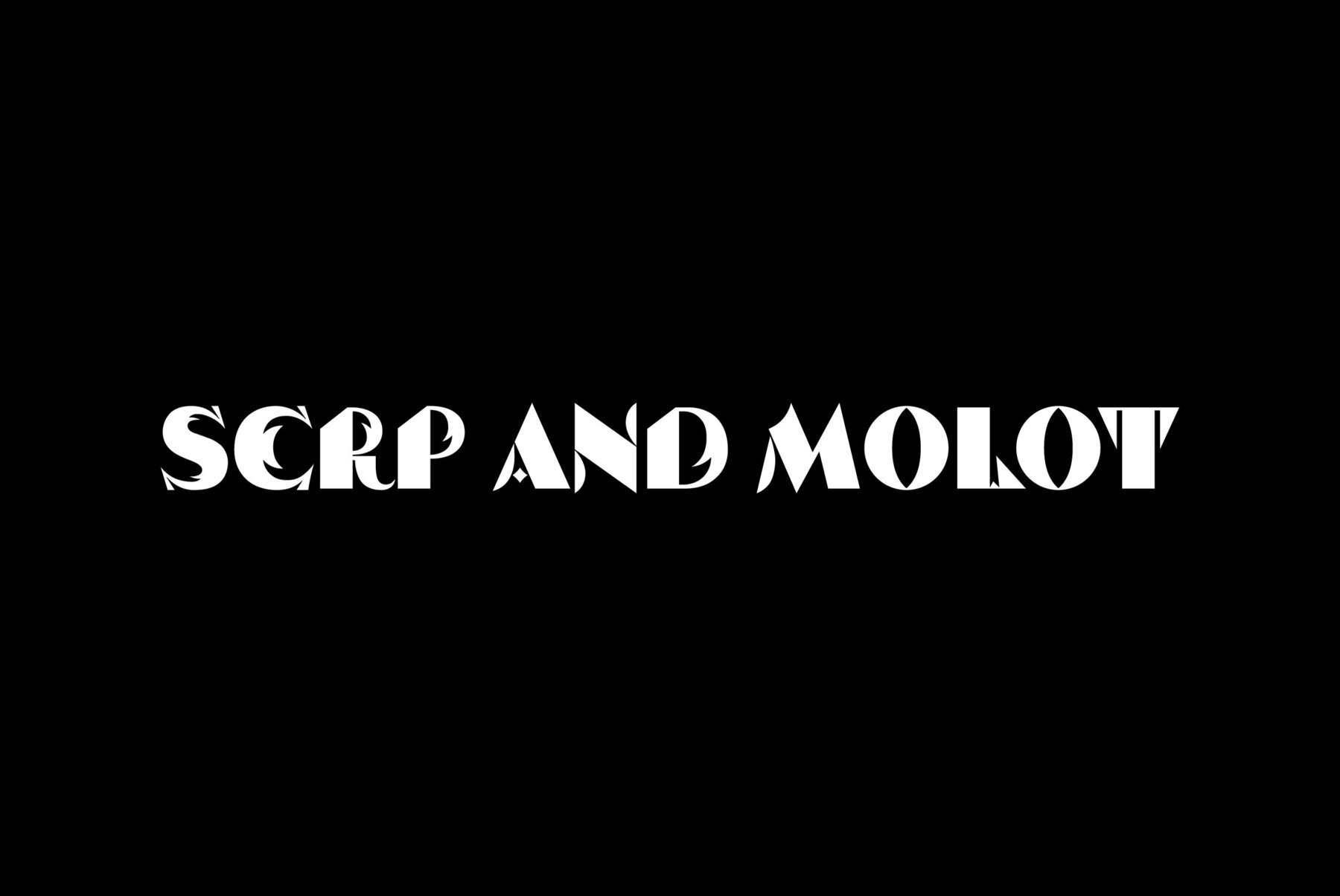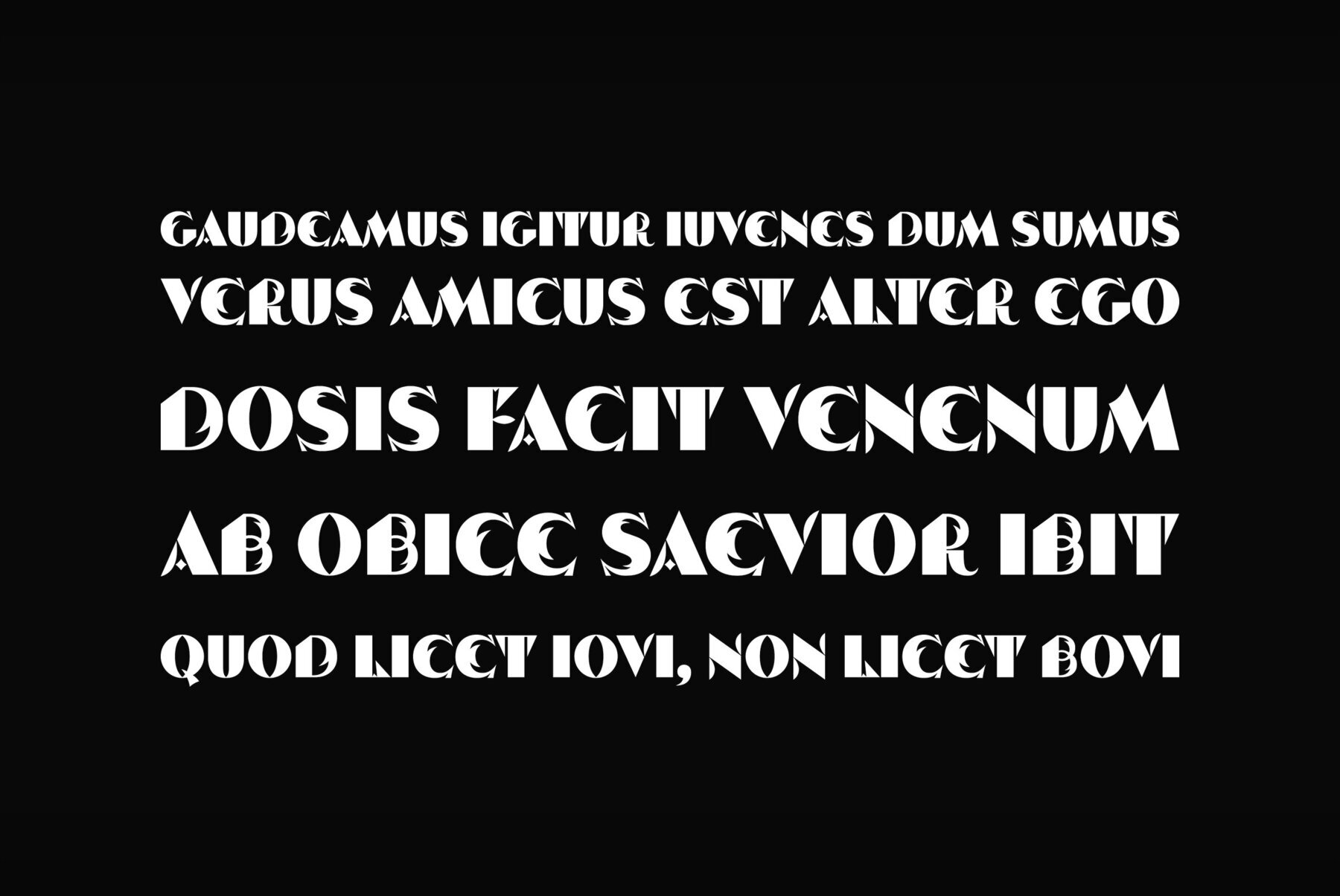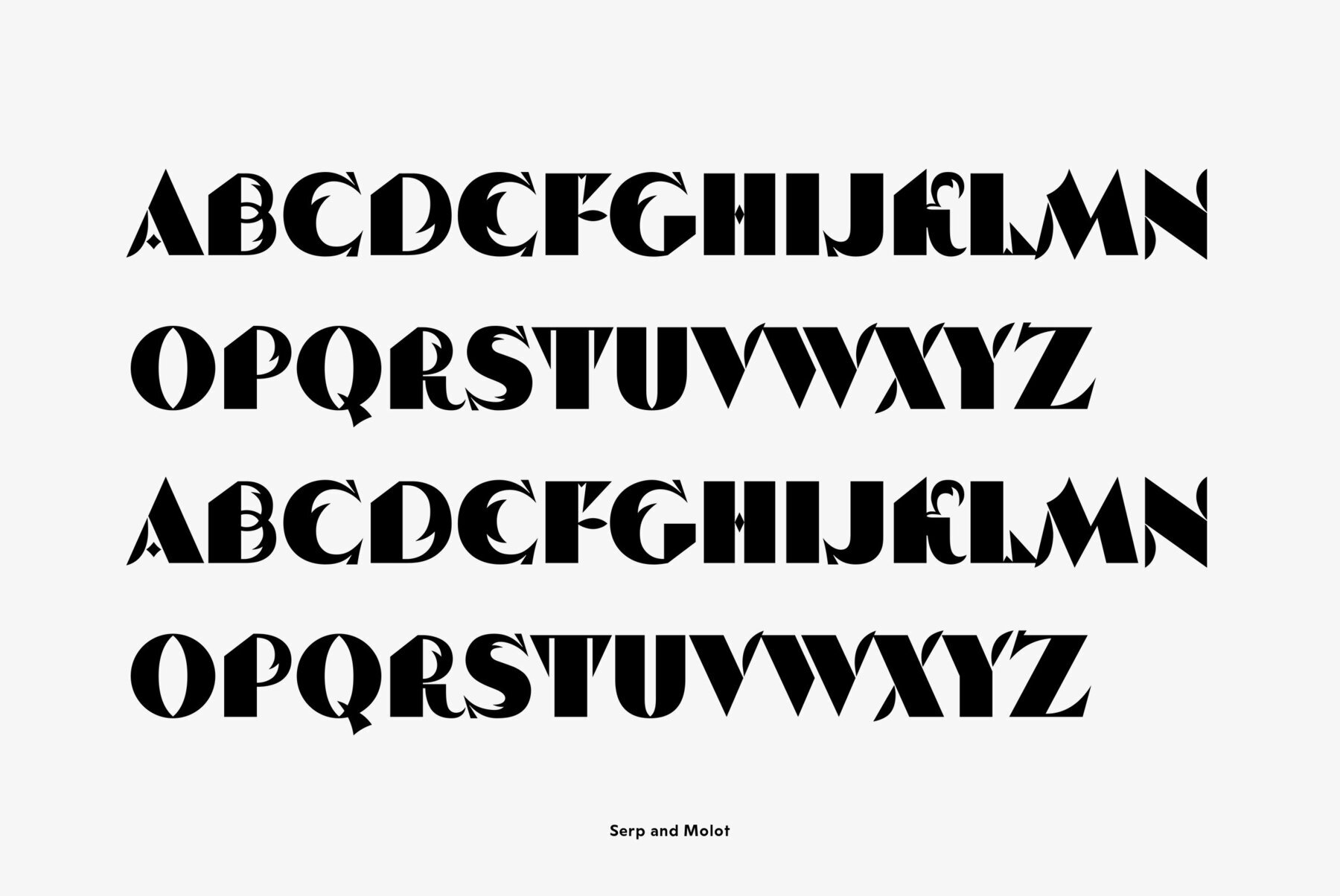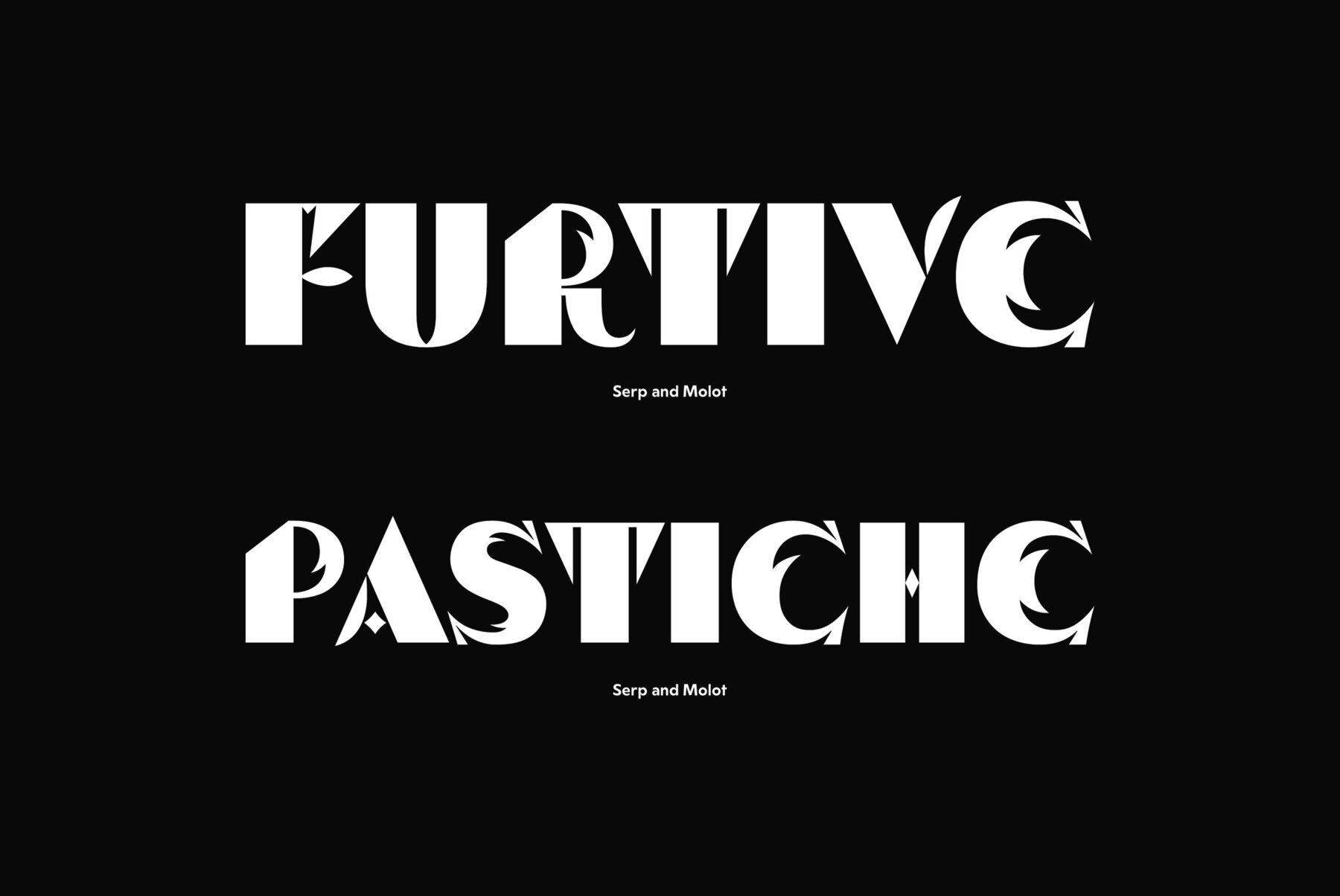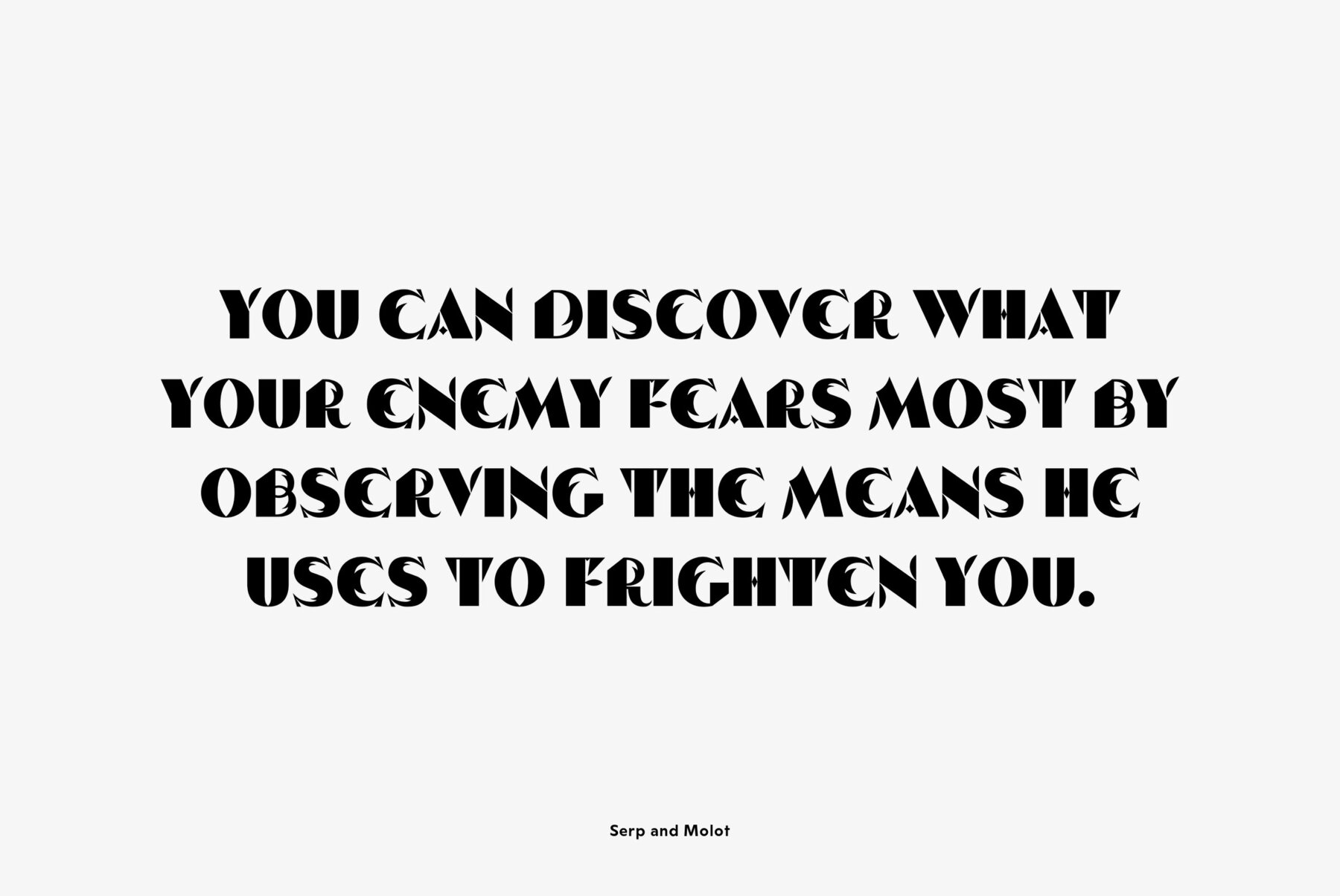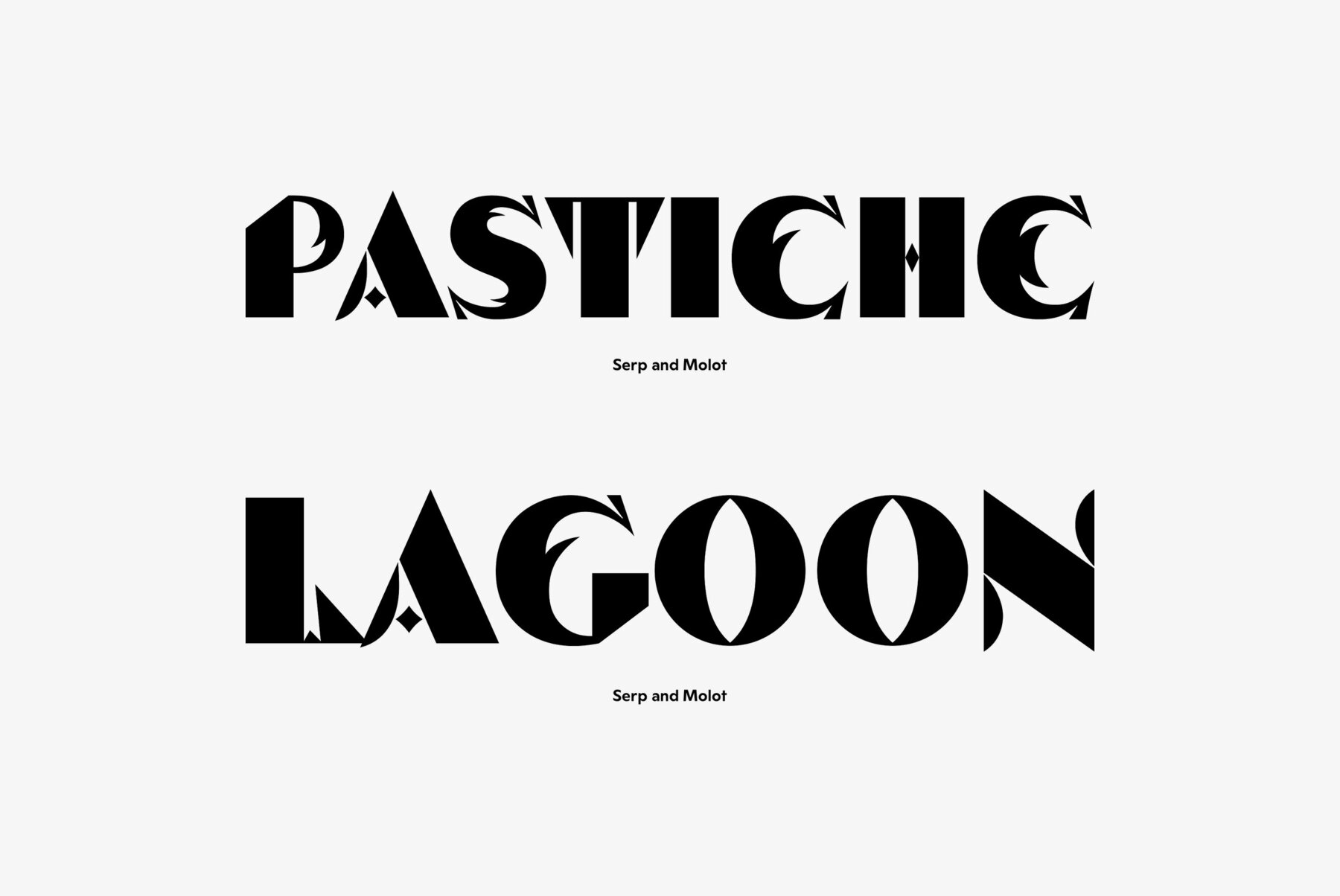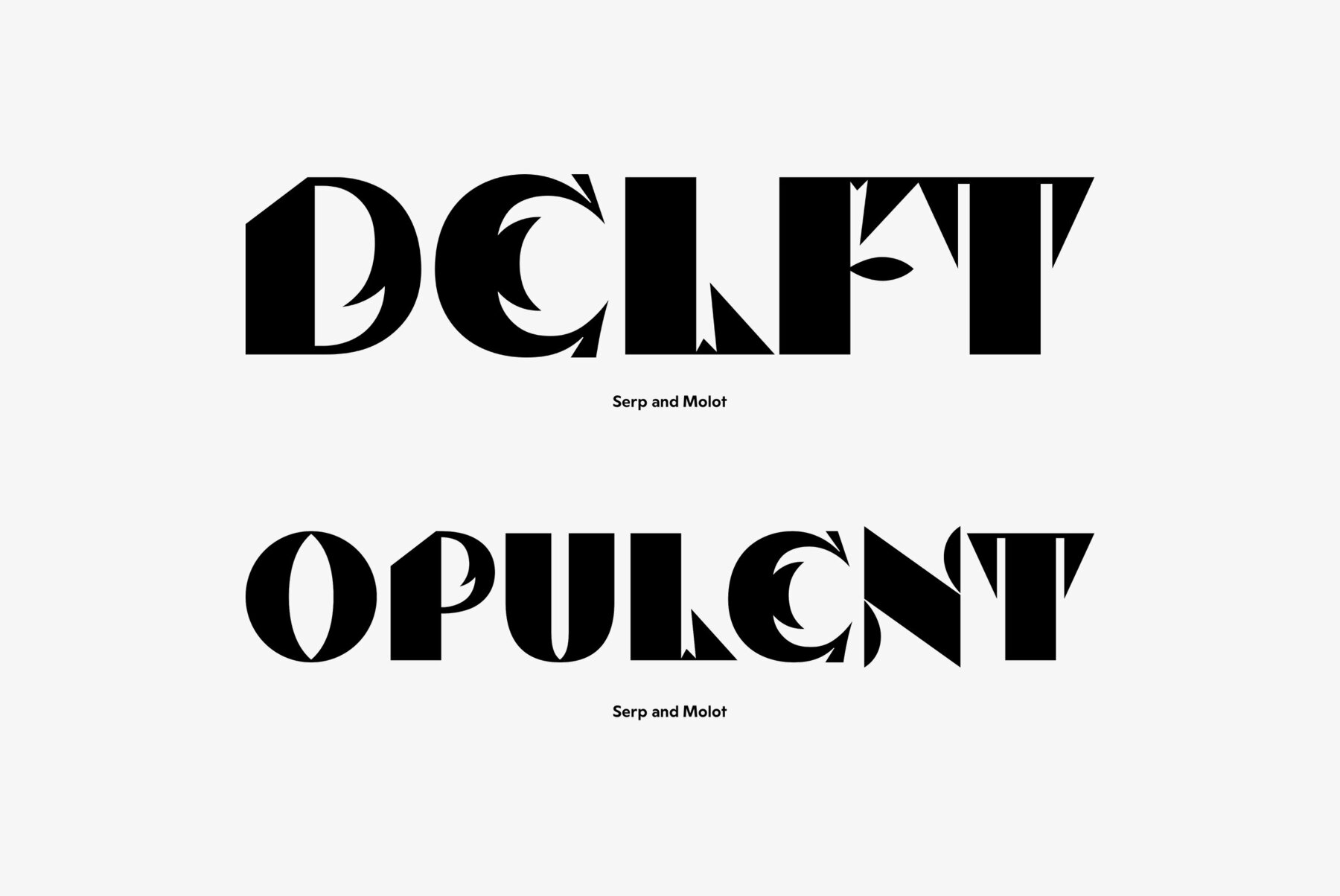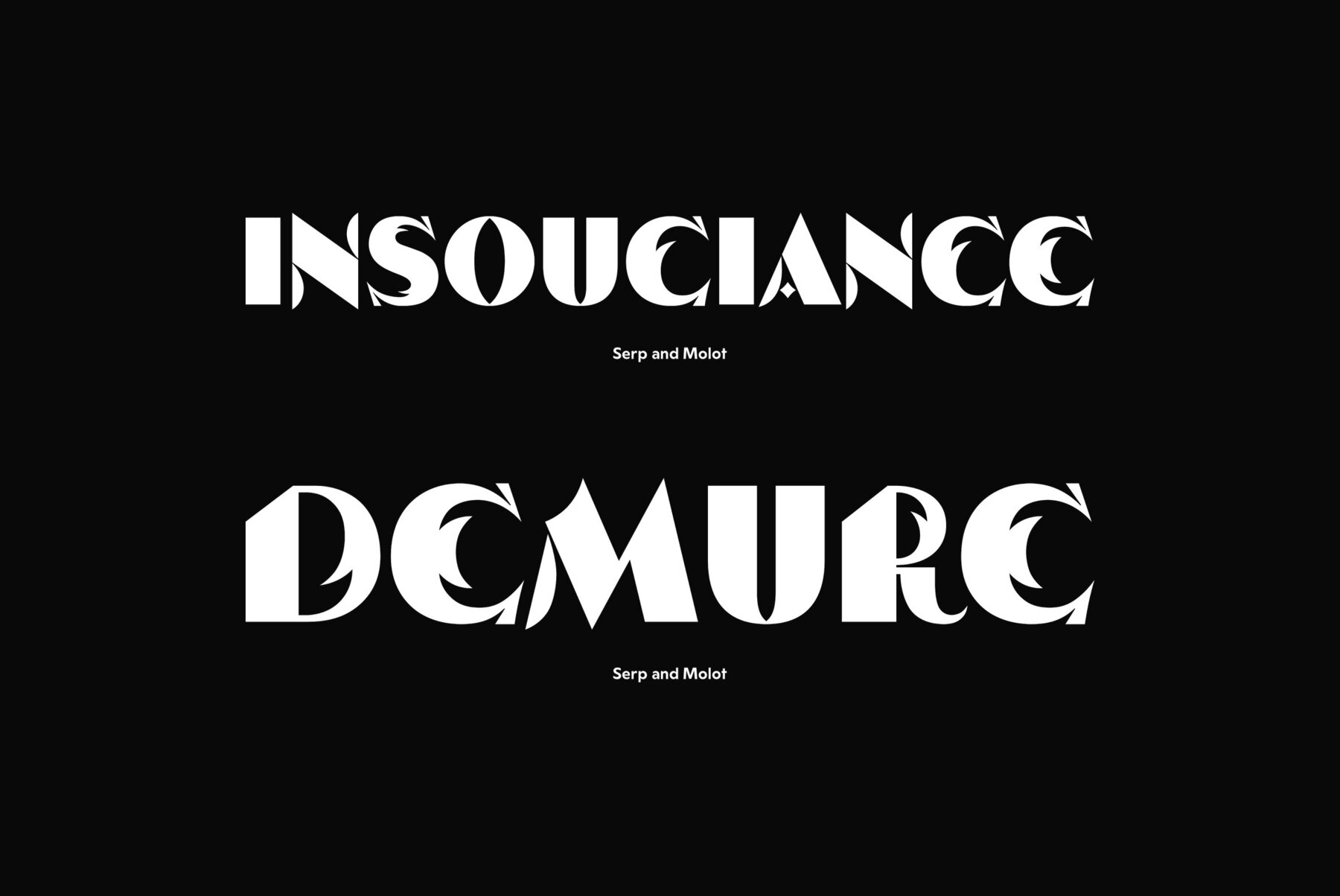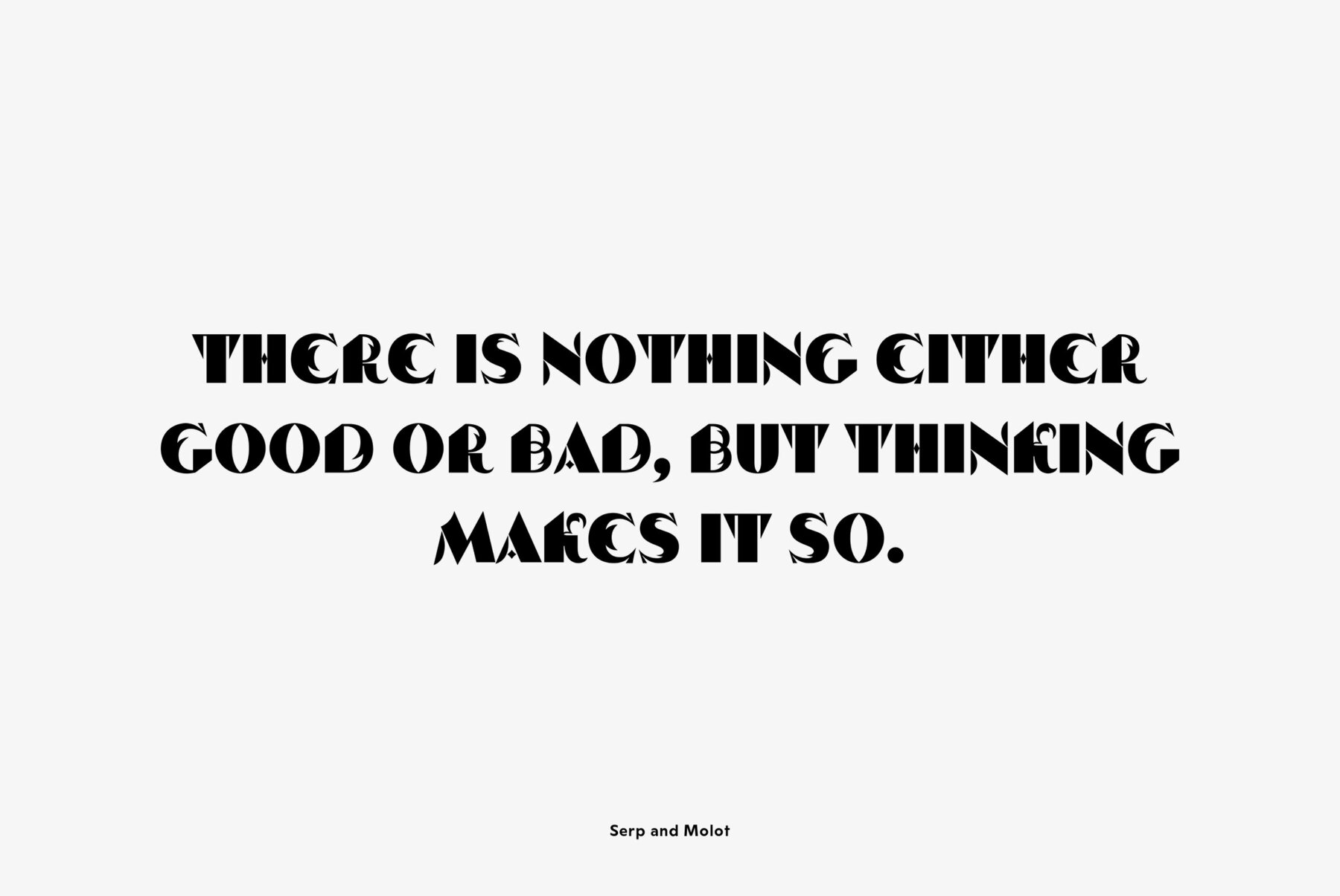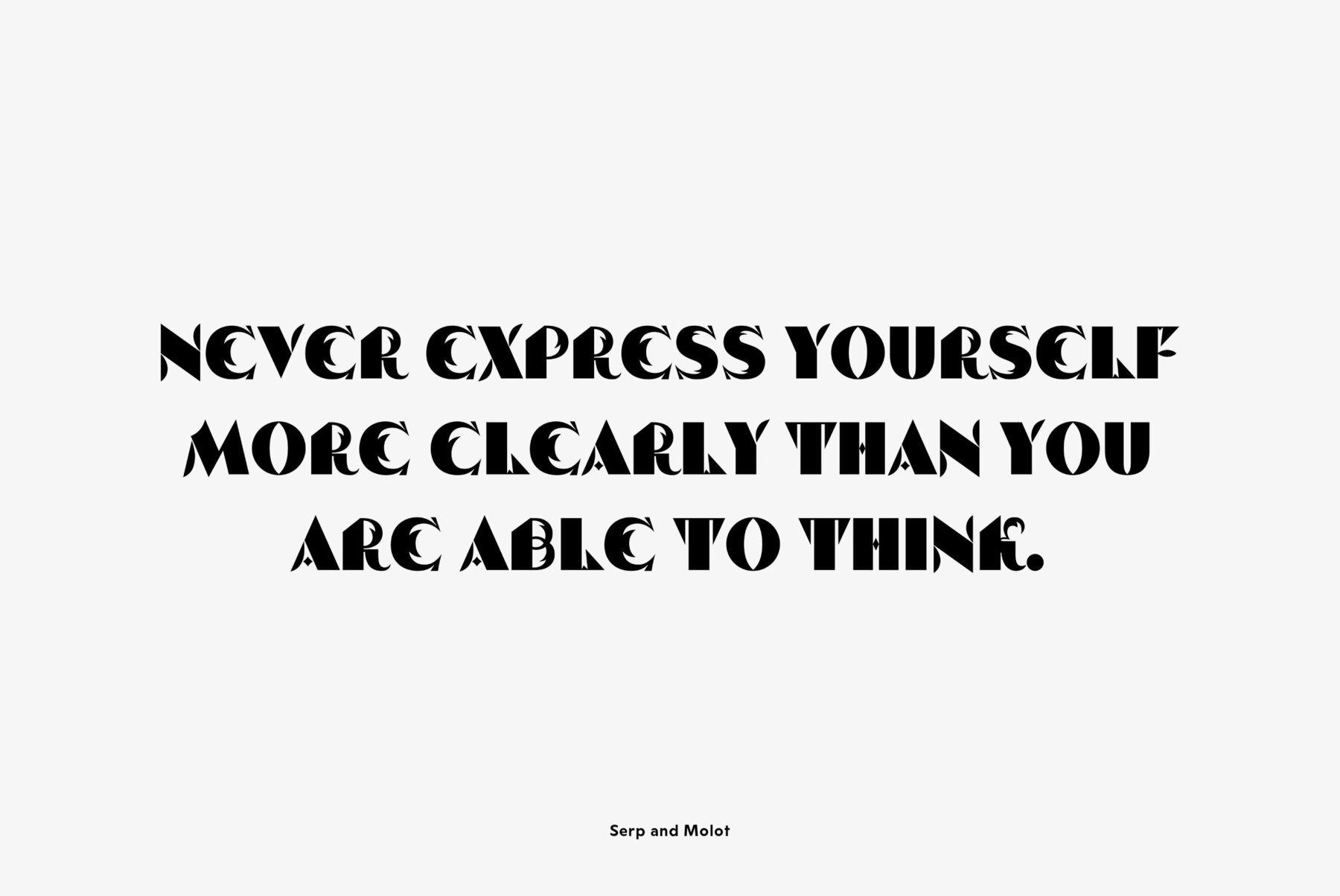
Designed for ParaType in 2003 by Tagir Safayev. The typeface was inspired by some of the Cyrillic letterforms of Sergey Chekhonin (1878-1936). Chekhonin belonged to the World of Art group, which is so closely associated with the flowering of Russian book and theater design at the beginning of the 20th century. For use in advertising and display typography. Serp & Molot has been adjugded Award of Excellence in Type Design of 'bukva:raz!' ATypI International Type Design Competition, 2001.